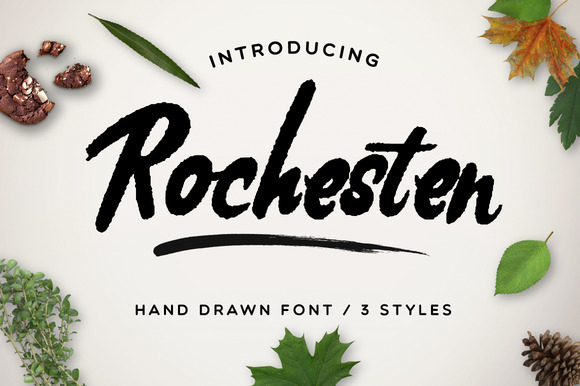
Introducing Rochesten Font - a Captivating Display Font Rooted in the Wild
Journey into the heart of nature with Rochesten Font, a stunning display font that evokes the untamed beauty of the animal kingdom and the serene whisper of the forest. Crafted by the ingenious minds at Mellow Design Lab, Rochesten is a hand-created masterpiece that will infuse your designs with a touch of the wild.
Unleash Your Creativity with Endless Versatility
Rochesten Font is not just a font; it's a gateway to a world of creative possibilities. With its remarkable adaptability, it effortlessly lends itself to a myriad of applications, from captivating headings and logos to enchanting invitations and t-shirt designs. Whether you're crafting heartfelt greeting cards, eye-catching posters, or sophisticated labels, Rochesten Font will elevate your designs to new heights.
Capture the Essence of Nature in Your Designs
Let Rochesten Font transport you to a realm where nature's whispers come alive. Its intricate details and organic flow embody the untamed spirit of the wild, adding a touch of magic to your creations. Whether you're designing book covers, brochures, or any other project that calls for a connection with nature, Rochesten Font will seamlessly blend your vision with the beauty of the natural world.
Embrace the Beauty of Uniqueness
With Rochesten Font, you'll never settle for ordinary again. Its distinct character and captivating aura will set your designs apart, leaving a lasting impression on your audience. Let Rochesten Font be your artistic compass, guiding you towards creating designs that are as unique and captivating as nature itself.
Make Your Designs Roar with Untamed Beauty
Don't let your designs blend into the mundane. Unleash the raw power of Rochesten Font and let your creations resonate with the untamed beauty of the wild. Its bold strokes and organic flow will command attention, leaving your audience mesmerized by the sheer brilliance of your designs.